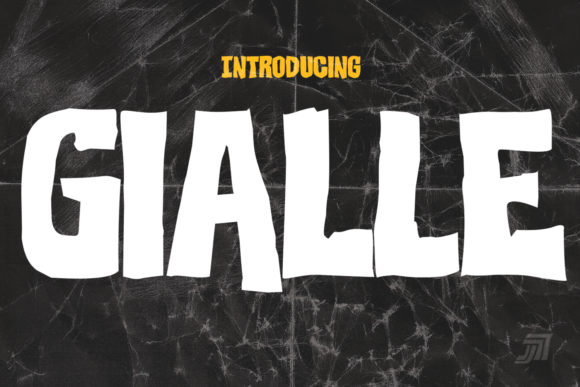
Journey through the golden era of European cinema with the Gialle Family Font, a cinematic masterpiece that captures the essence of iconic Italian films from the mid-seventies. Inspired by the works of legendary directors like Dario Argento and Lucio Fulci, this display font family exudes a captivating charm that transports you back to a time of mystery, suspense, and thrilling visuals.
With its bold and distinctive letterforms, the Gialle Family Font is a visual storyteller, evoking emotions and creating an immersive experience. Its three distinct weights offer endless possibilities for creative expression, allowing you to craft unique designs that resonate with your audience. Whether you're designing movie posters, album sleeves, Halloween party flyers, or any other project that demands a touch of cinematic flair, the Gialle Family Font is your perfect companion.
Step into the world of Gialle and unleash your creativity. Craft designs that captivate and mesmerize, leaving an unforgettable impression on your audience. Let the Gialle Family Font be your artistic muse, guiding you to create masterpieces that transcend the ordinary and elevate your projects to new heights of visual brilliance.